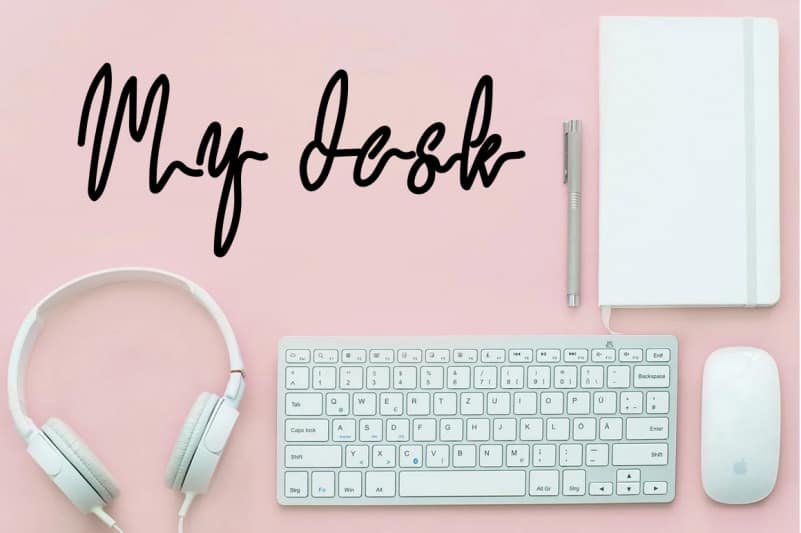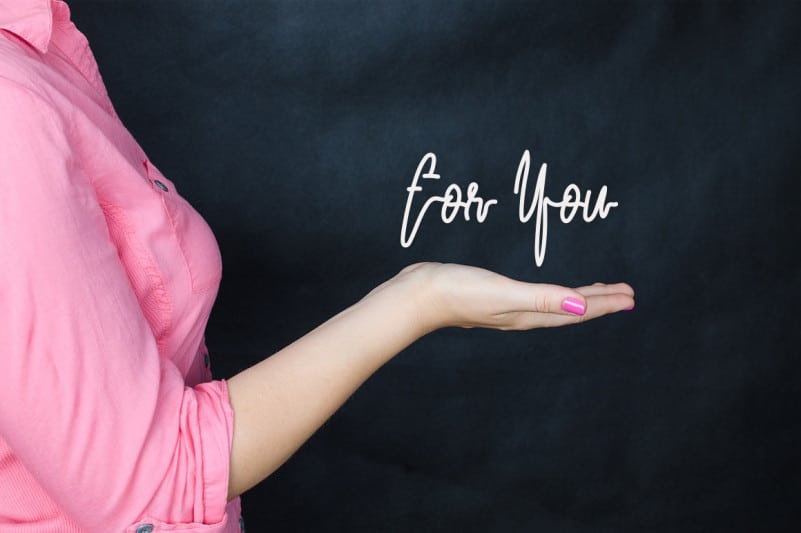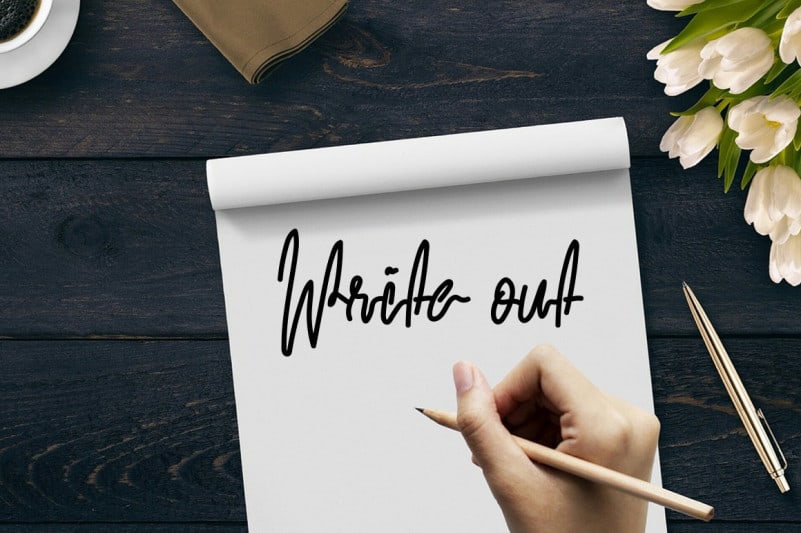
Valentine Notes Script Font
Valentine Notes Script Font is a unique, fashionable and asymmetrical handwritten font. It is the best choice for creating eye catching logos, branding and quotes. Every letter has a unique and beautiful touch, which will make your design come alive!
Valentine Notes Script Font is a very talented product for you to use,
Latest letters that can be used for various products, invitations, wall hangings, weddings, and more.